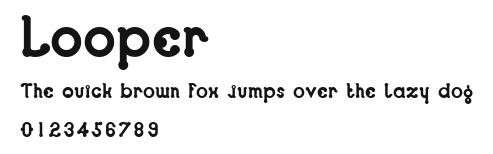
Looper Preview
• Font Name: Looper
• Font Style: Regular E.
• Full Font Name: Looper Regular E.
About Looper.ttf
Looper.ttf is a modern, elegant sans-serif font designed for ultimate readability and visual harmony. Perfect for branding, headlines, web design, and print materials.